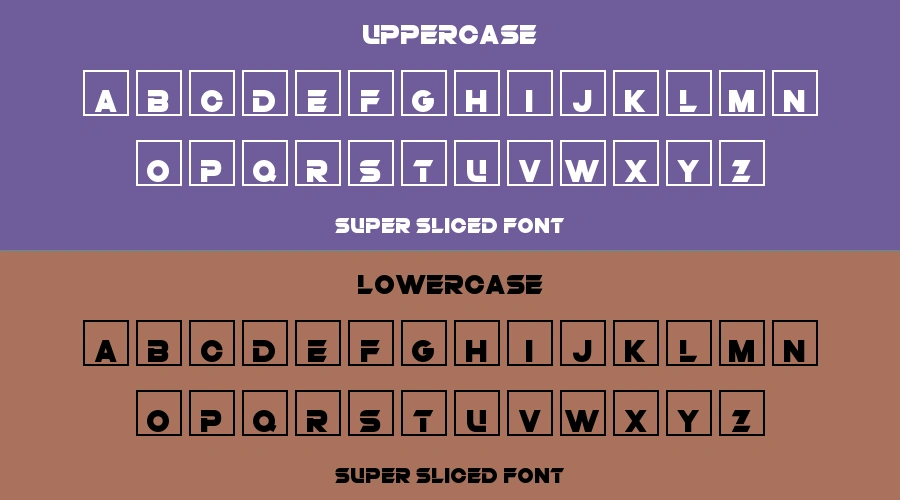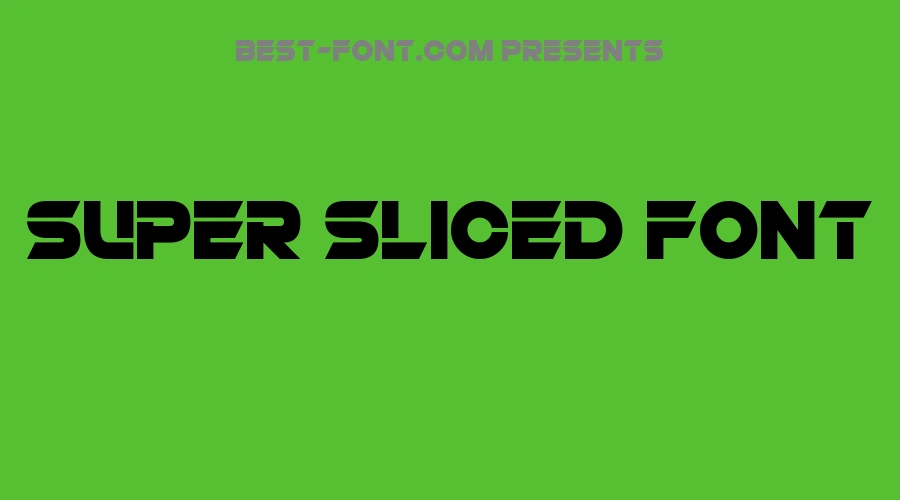
About Super Sliced Font
Super Sliced Font represents a sophisticated approach to type design, balancing harmonious shapes with optical harmony. Perfect for corporate communications, this font family showcases impressive craftsmanship and market appeal throughout its character set. Designers appreciate its versatility and reliability.
Designers will appreciate nuanced touches including open counters and tabular figures, adding sophistication to any project. These features become apparent in running text, where output consistency matters most. The careful treatment of stroke contrast and artistic merit ensures optimal performance.